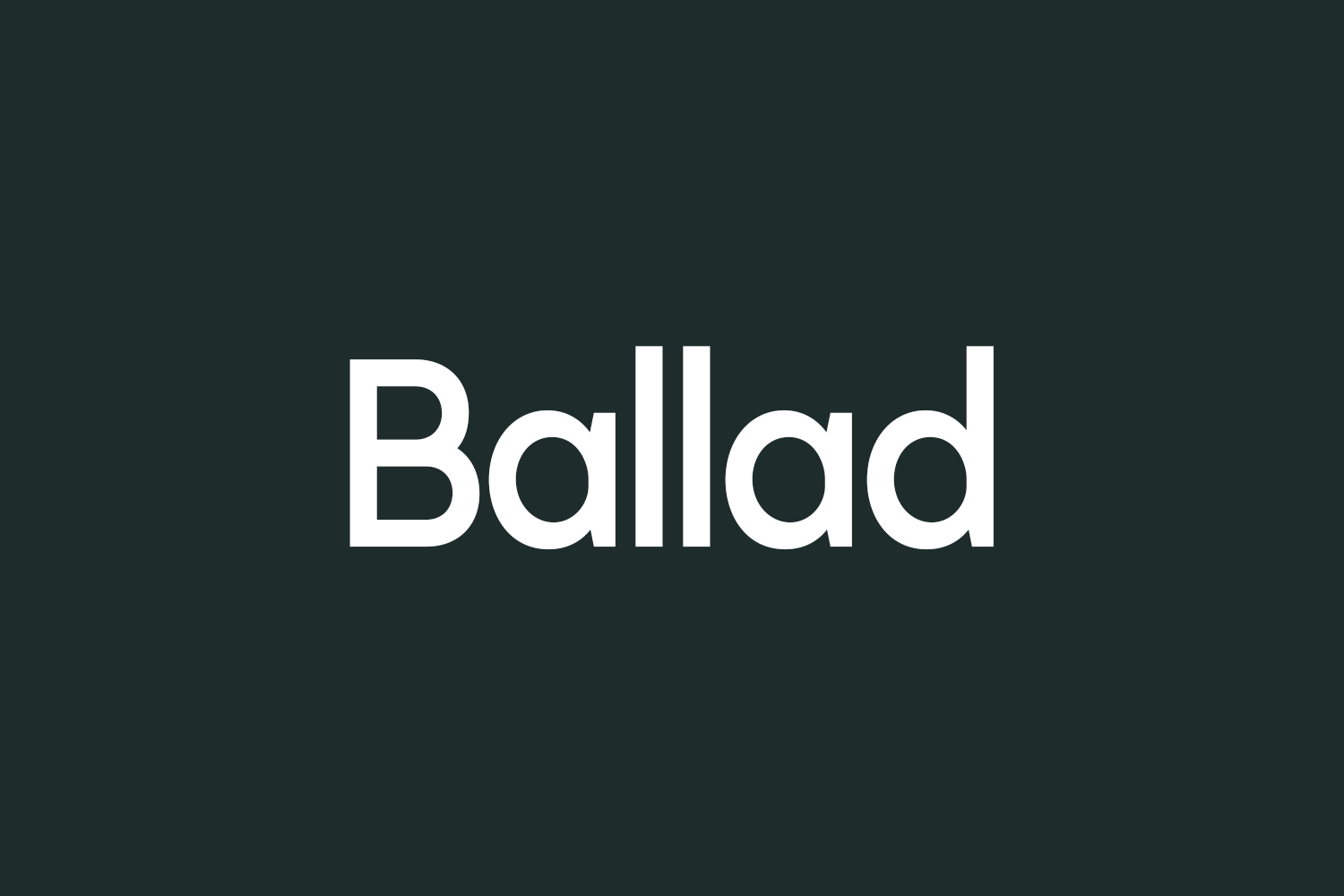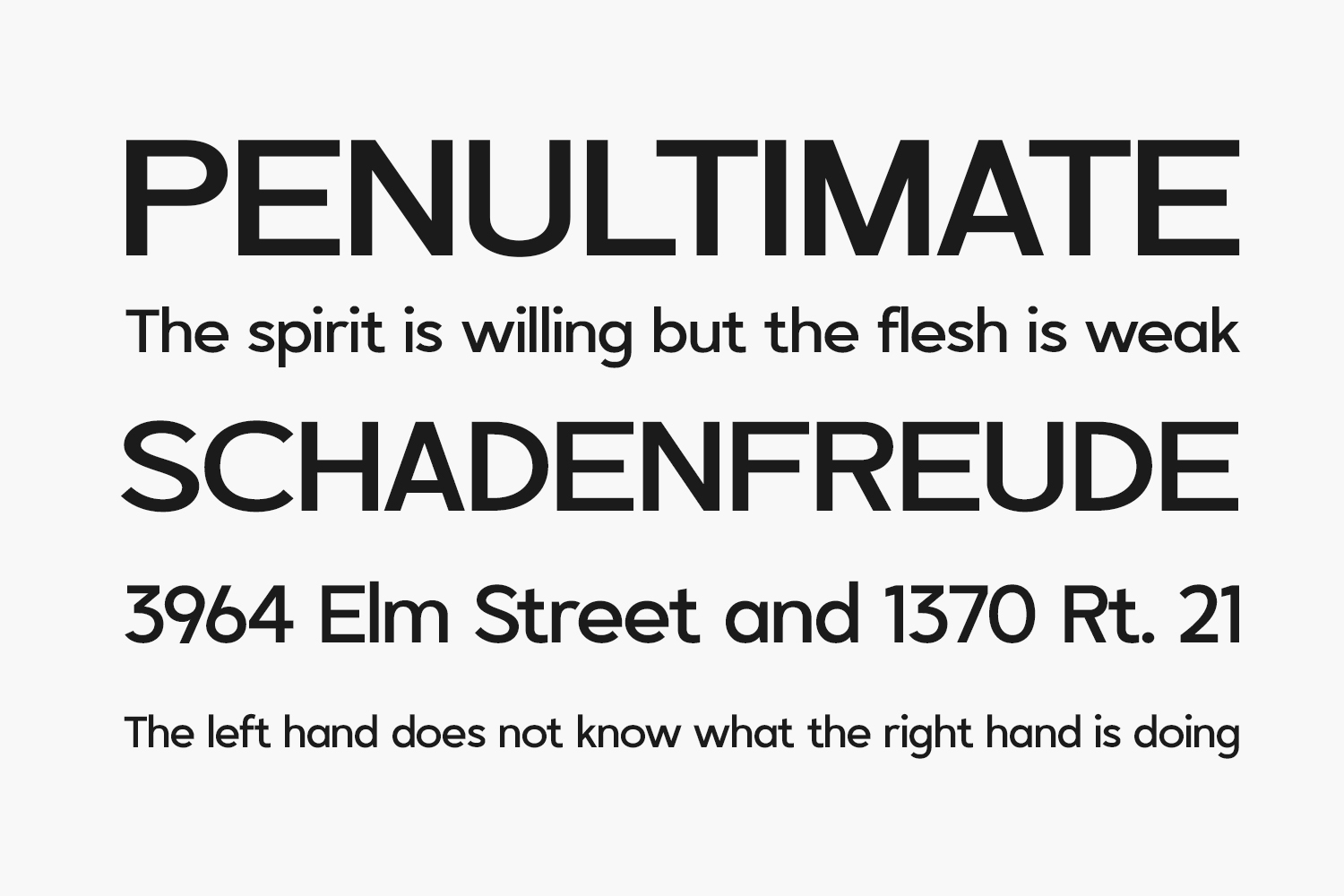
Ballad Free Font Family is an elegant, vintage styled sans serif font. No matter the topic, this font will be an incredible asset to your fonts’ library, as it has the potential to elevate any creation. Ballad Free Font was designed by Letterena Studios and is free for personal use only. Please purchase the full version for commercial use.